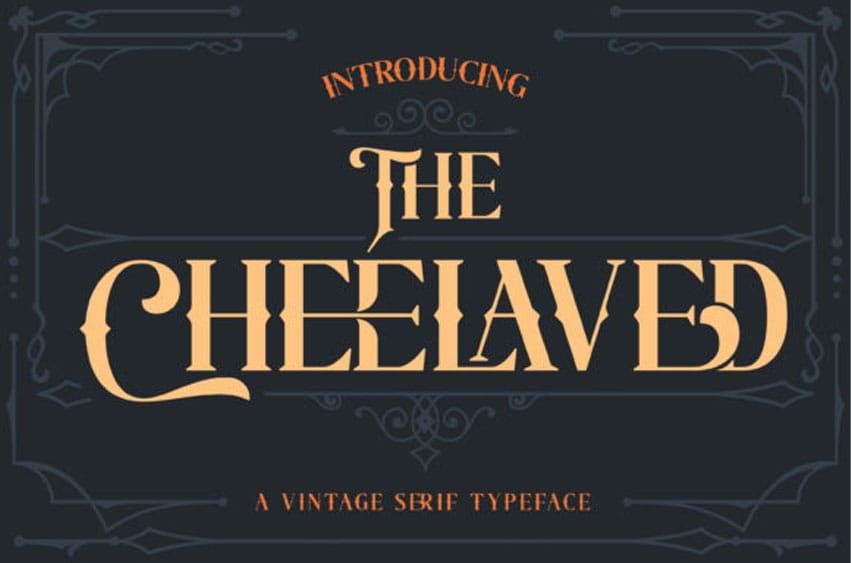
The Cheelaved Font
The Cheelaved Font is a display vintage serif typeface inspired by the decorative arts and architecture movement.
The Cheelaved font is perfect for your project and allows you to create designs, headlines, posters, logos, badges, t-shirts, and many more. It is also best used for posts, logos, posters, certificates, labels, and more.